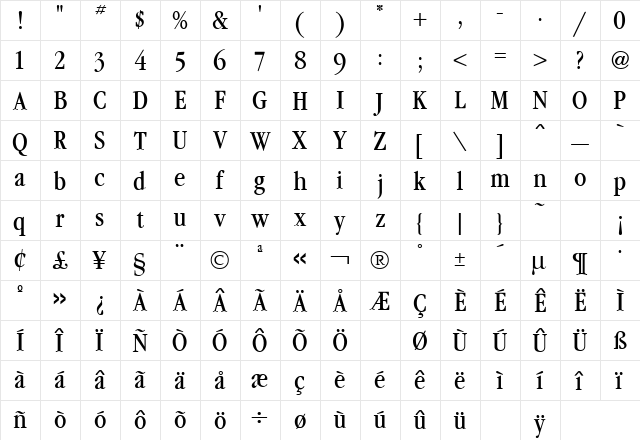
Garamond Condensed Regular
Design Context for Garamond Condensed Typeface
Garamond Condensed takes a measured approach to typography — its balanced proportions and neutral character make it a reliable workhorse for both digital and print work. The condensed width makes it efficient for tight spaces without sacrificing legibility.